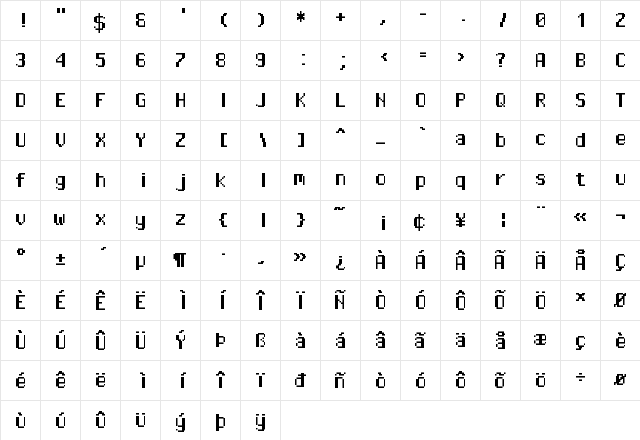
Pixel Operator Mono HB Regular
| Foundry | The Grandoplex Project |
| Designer | Jayvee Enaguas (HarvettFox96) |
Design Context for Pixel Operator Mono HB Typeface
Pixel Operator Mono HB is rooted in pixel-grid construction, making it a natural fit for game UI, retro computing aesthetics, and digital nostalgia projects.
Well-suited to indie game interfaces, retro computing aesthetics, and pixel art-adjacent design work.
Pro Tip: Use Pixel Operator Mono HB at sizes that align with its pixel grid for the sharpest rendering — scaling to non-integer multiples can introduce unwanted blur.